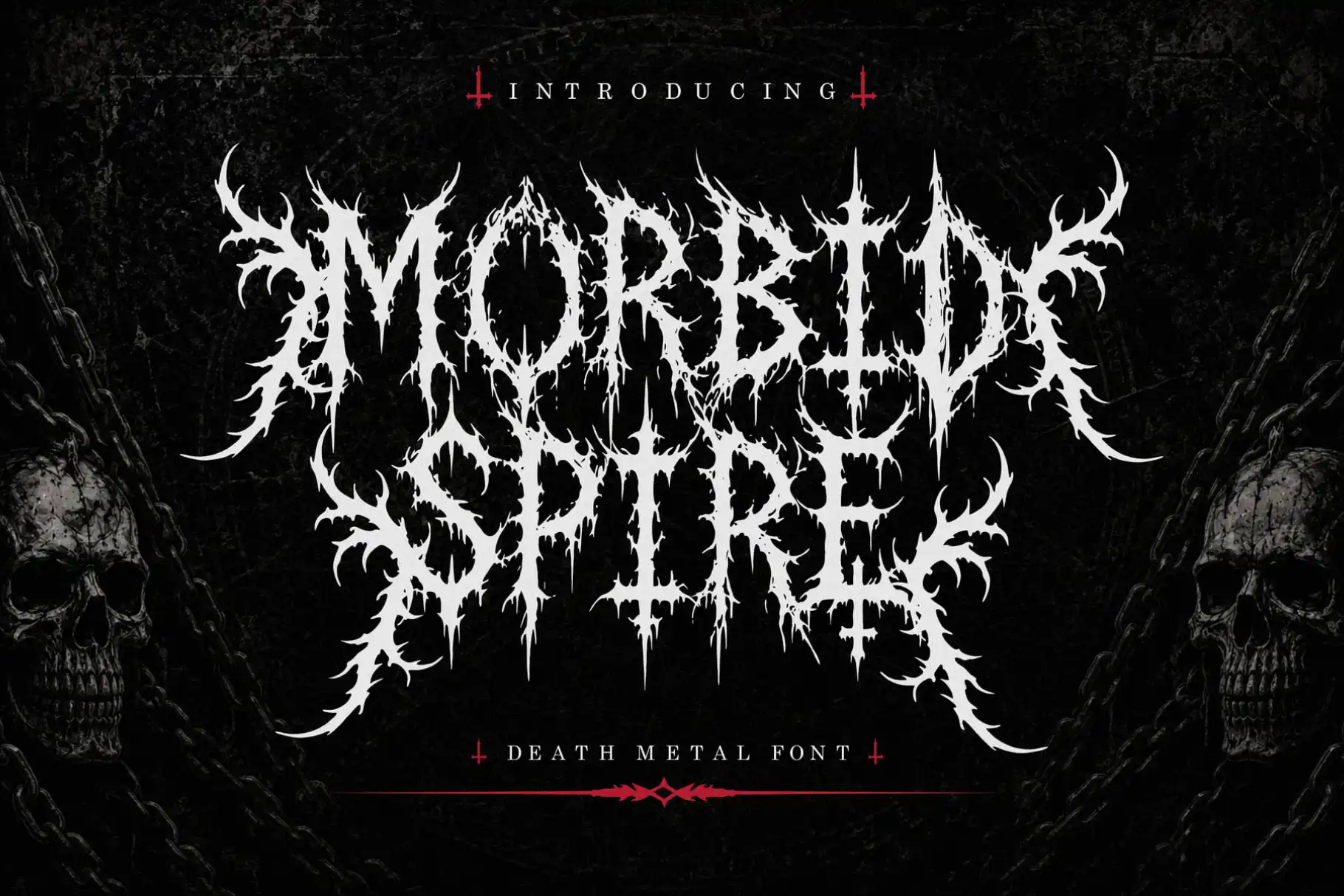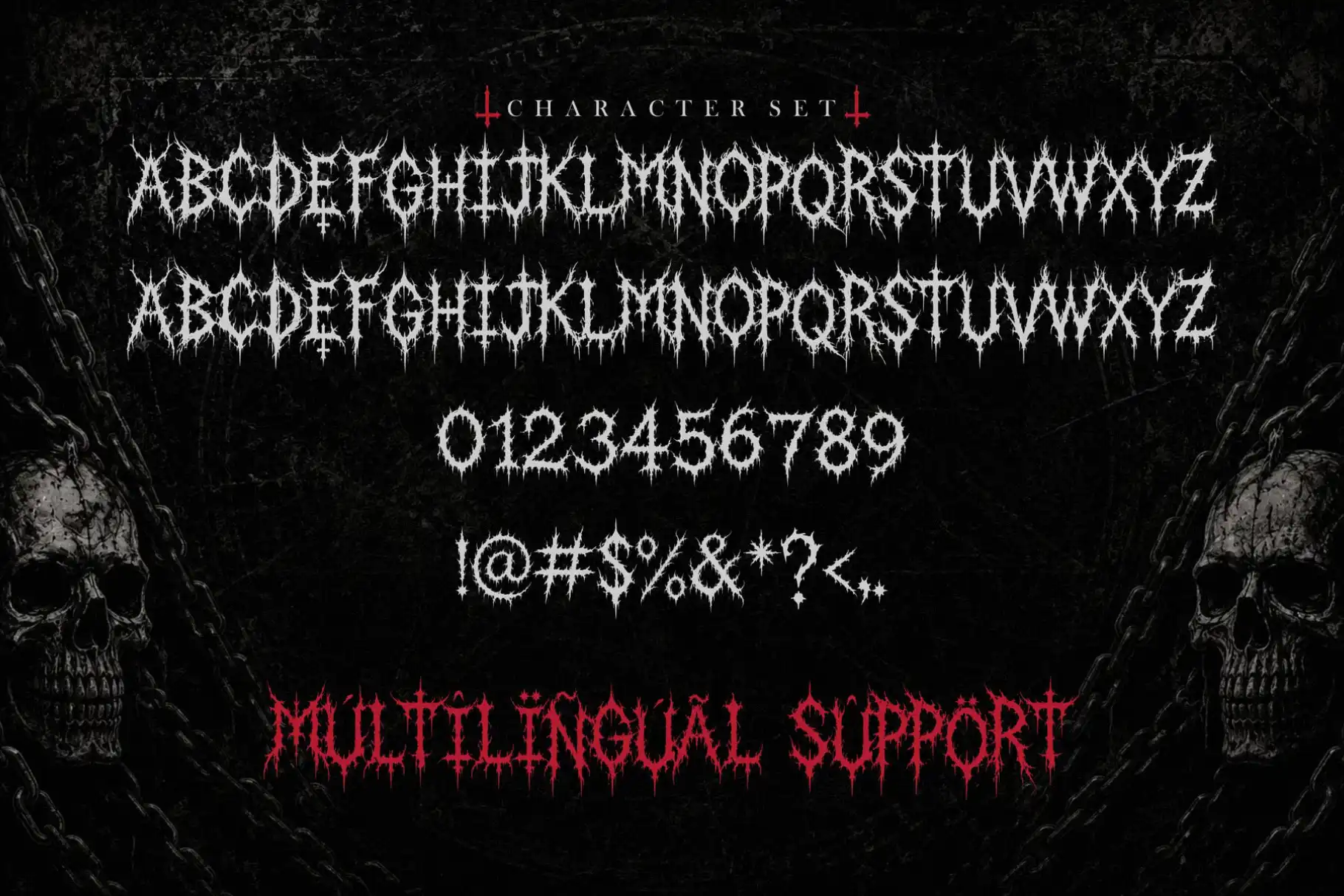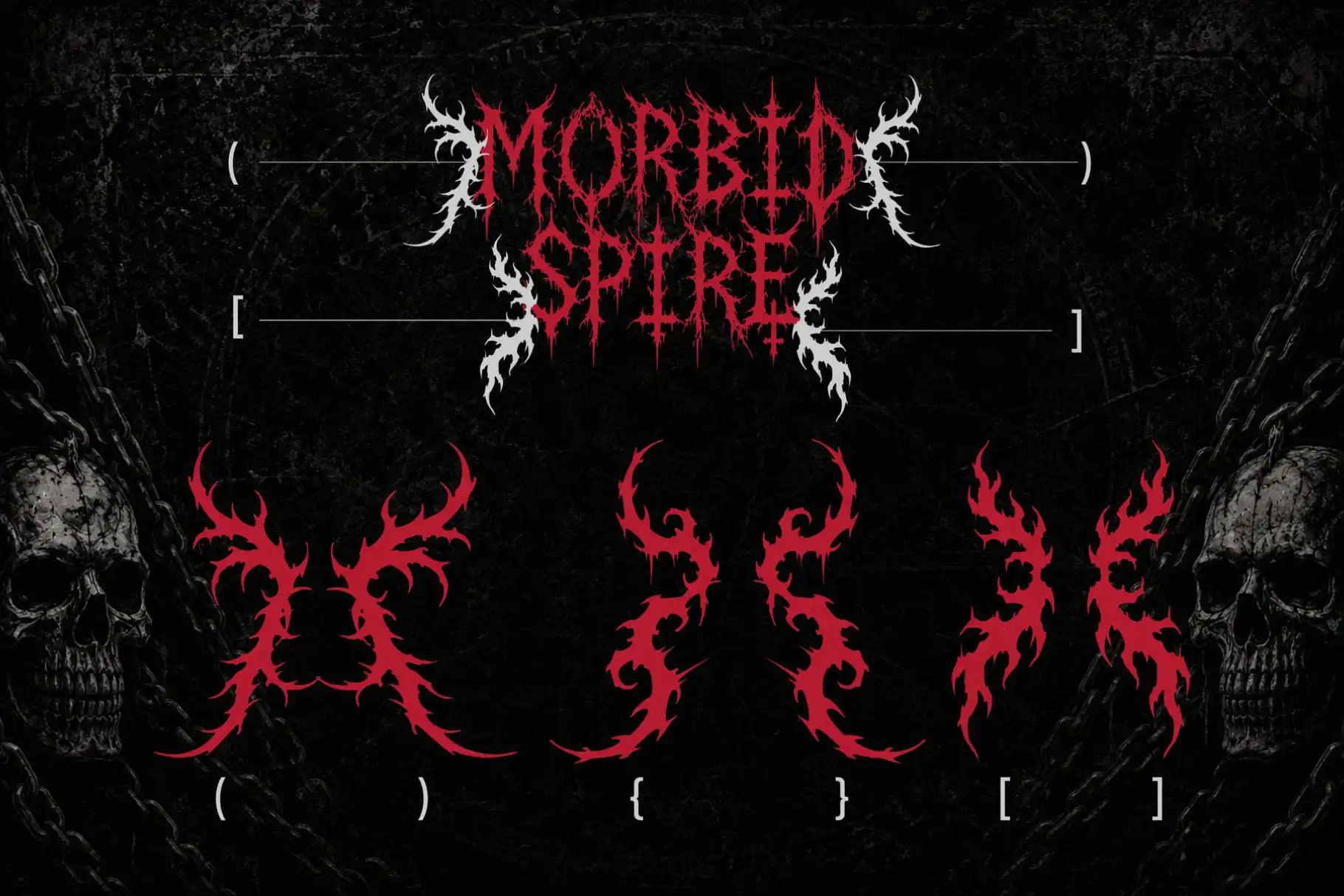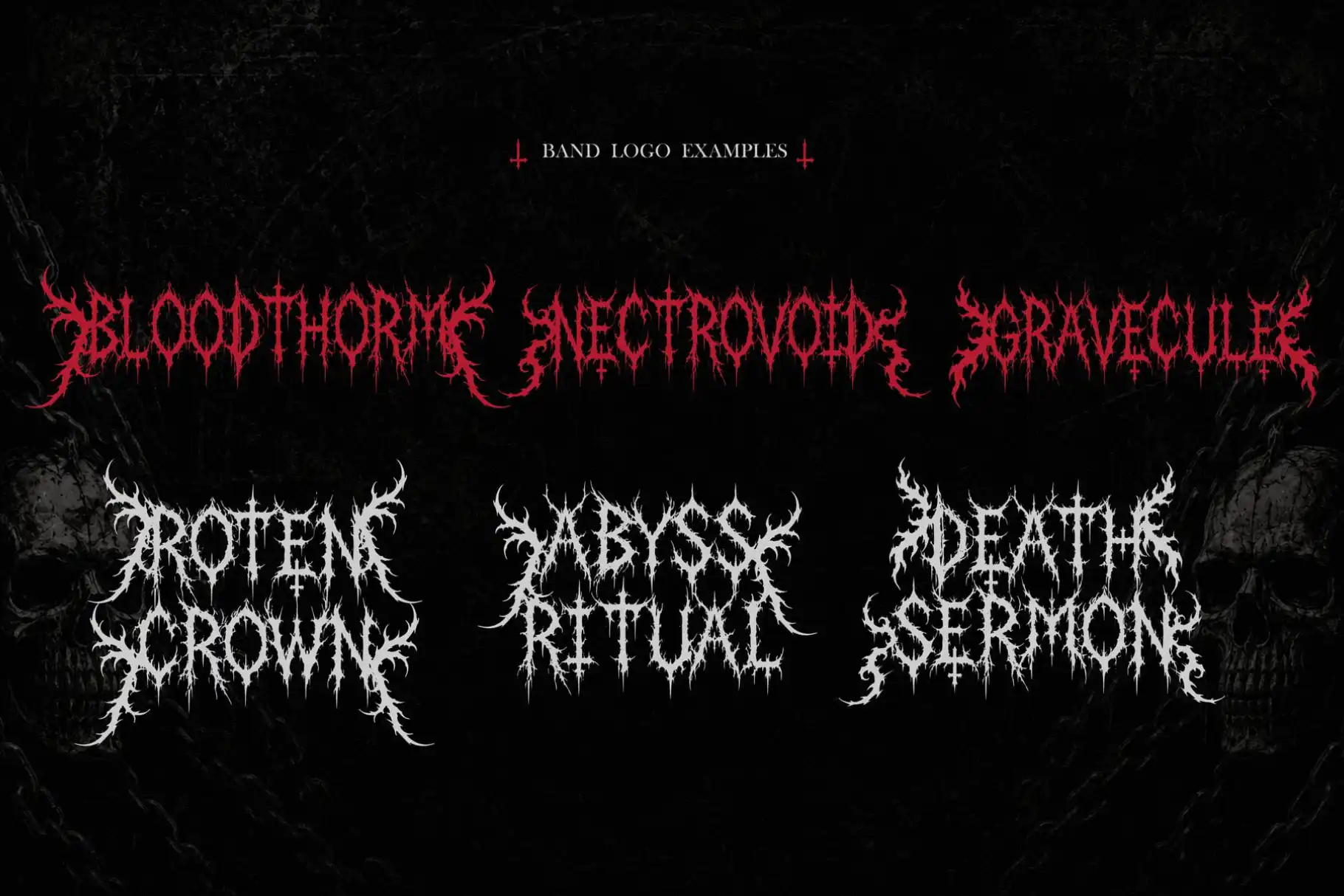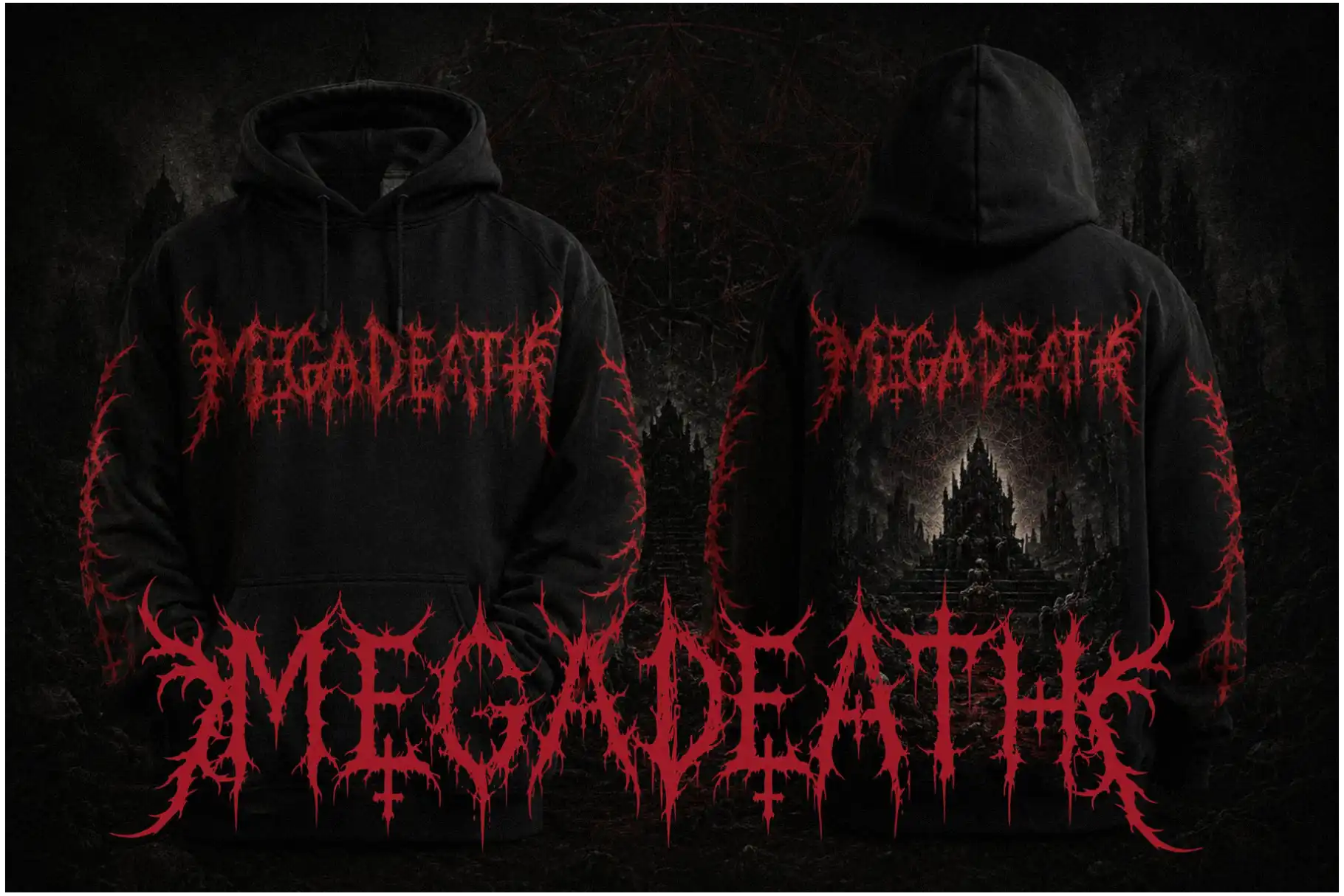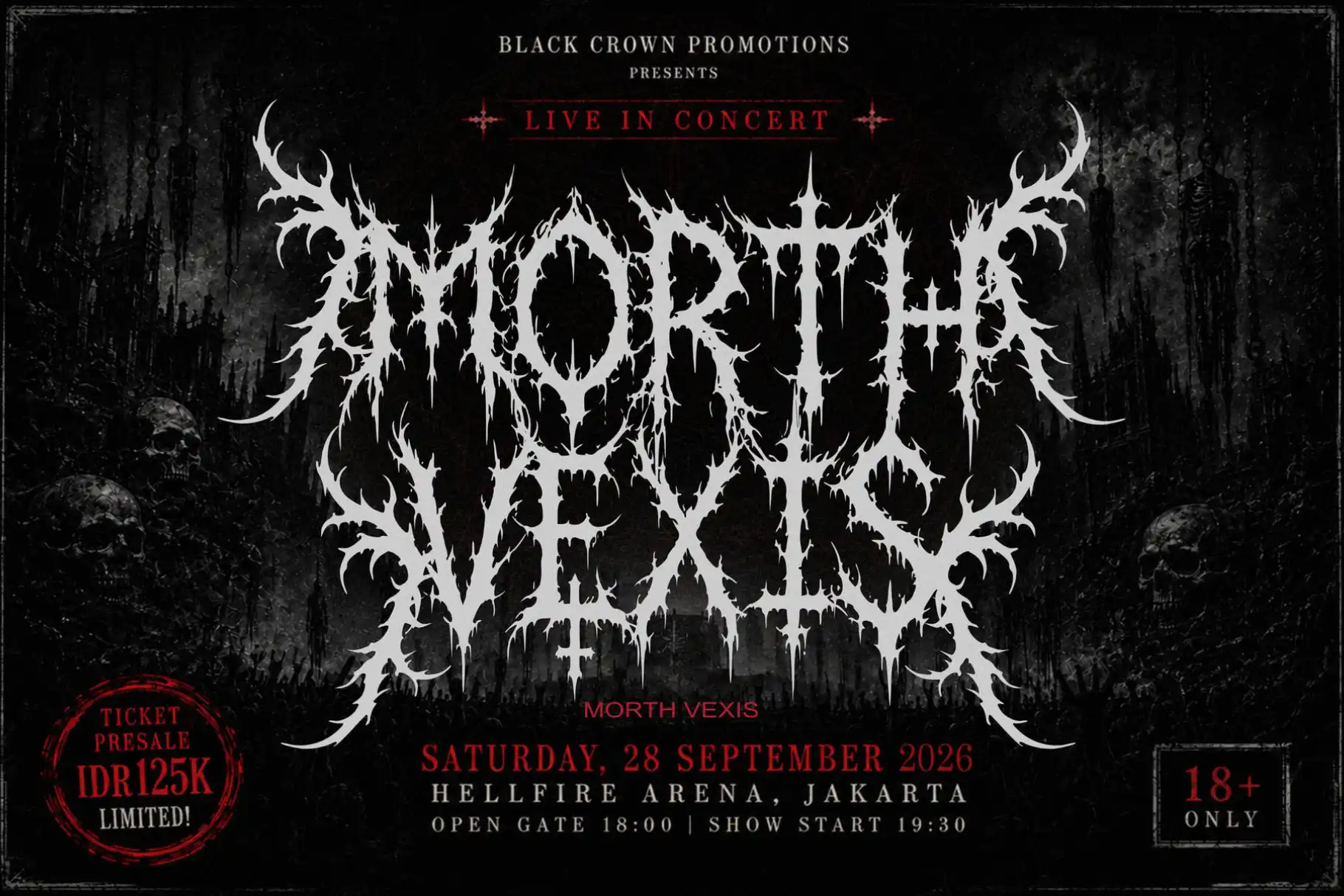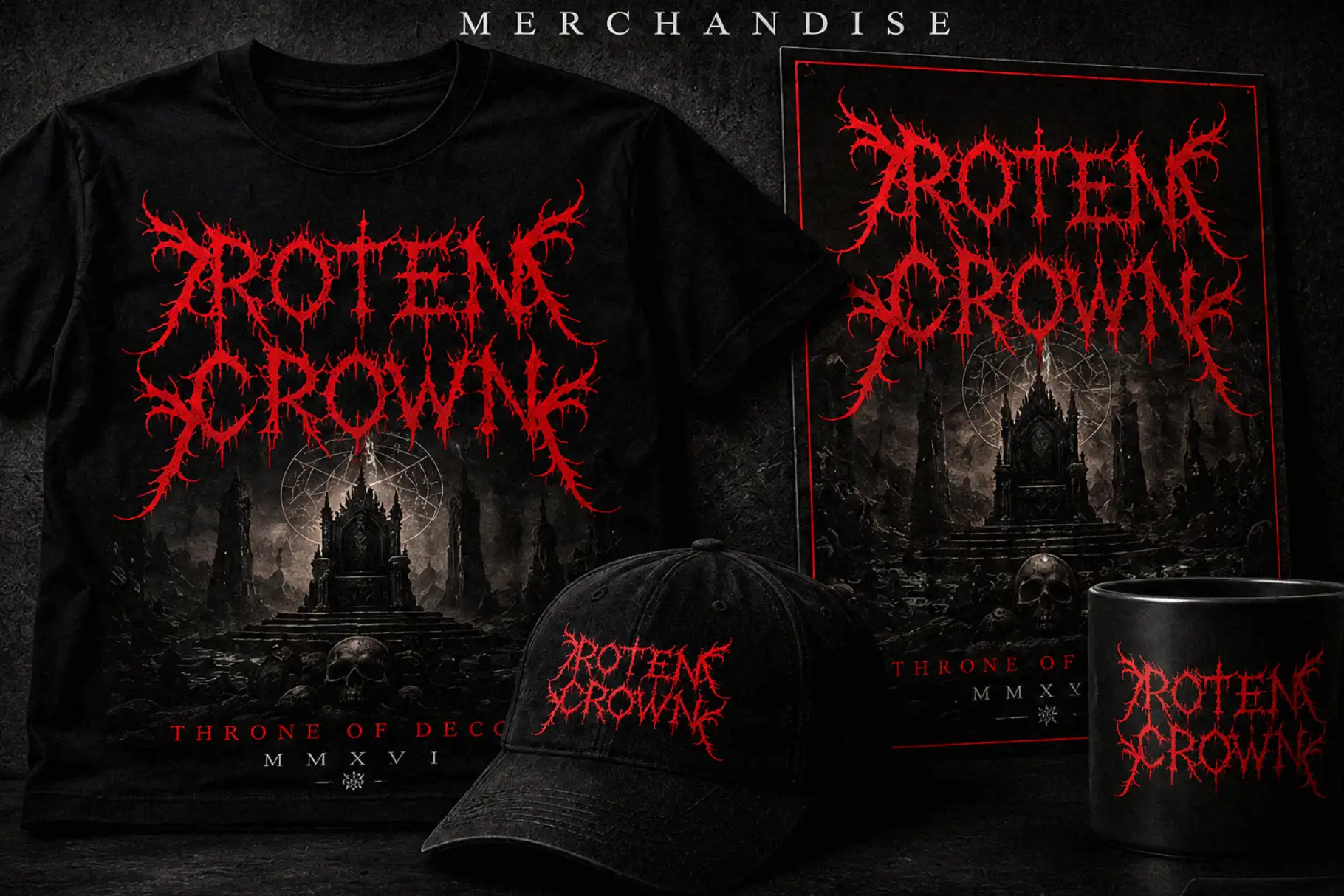
Morbid Spire Death Metal Font for Brutal Visual Statements
Morbid Spire death metal font is an all-caps display typeface created for artwork that needs a dark, aggressive, and unmistakably heavy visual presence. Built around a death metal aesthetic and completed with decorative details, it gives titles and names the intensity needed to stand confidently at the center of a composition.
This font is made for designers, musicians, apparel creators, creative studios, and independent brands working with extreme visual themes. Use it when an ordinary display font feels too restrained and your design needs typography with a stronger underground identity.
Morbid Spire works especially well in prominent placements where the letterforms can become part of the artwork. It can lead a band logo, dominate an album cover, introduce an event poster, or give merchandise graphics a distinctive metal-inspired direction.
Its all-caps structure creates a consistent and commanding typographic voice. Multilingual support also makes the font useful for designers producing creative work for different audiences and international projects.
Morbid Spire is defined by its death metal decoration and forceful all-caps presentation. The visual personality is dark, intense, confrontational, and highly decorative, making it suitable for compositions influenced by extreme music, horror imagery, underground culture, and alternative fashion.
Rather than acting as a quiet supporting typeface, Morbid Spire is designed to become a major visual element. Its decorative treatment helps transform words into artwork, making headlines feel more atmospheric and identities feel more distinctive.
The font can support monochrome compositions with black, white, gray, or distressed textures. It can also work inside more dramatic color palettes featuring deep red, metallic silver, acid green, dark purple, or other high-contrast combinations.
For the strongest result, give the typography enough space to remain visually dominant. Use Morbid Spire for the main name, title, or statement, then combine it with a simpler supporting font for dates, descriptions, track listings, product information, or smaller text.
Best Use Cases
Morbid Spire is a practical choice for creative projects that need an extreme, dark, or rebellious typographic direction. Its decorative all-caps style is especially suitable for:
• Death metal and extreme metal band logos
• Album covers and music artwork
• Concert flyers and festival posters
• Tour graphics and promotional banners
• T-shirt designs and apparel prints
• Metal merchandise and accessories
• Horror-themed posters and titles
• Tattoo-inspired typography
• Underground event branding
• Gaming team names and dramatic titles
• Social media graphics for bands and artists
• YouTube thumbnails and music channel artwork
• Stickers, patches, labels, and printed products
• Creative logos for alternative brands
• Editorial covers with a dark visual concept
Key Features
• All-caps letter style
• Multilingual support
• Death metal decoration
• Designed for bold display typography
• Suitable for dark, extreme, and music-inspired visual projects
Morbid Spire helps designers establish a strong creative direction without relying on ordinary display lettering. Its death metal decoration immediately introduces a clear mood, which can make the early stages of building a poster, logo, album cover, or merchandise graphic more focused.
The all-caps design is useful for compact names, powerful titles, and short statements that need to command attention. Designers can use the font as the visual anchor of a layout, then build supporting imagery, textures, illustrations, and secondary typography around it.
For musicians and independent labels, Morbid Spire offers a practical way to create a recognizable visual identity across releases, social content, promotional posters, and merchandise. For apparel designers, it can bring a darker personality to front prints, back graphics, patches, labels, and limited-edition collections.
Its multilingual support gives creative professionals additional flexibility when working across languages. This is valuable for international collaborations, touring materials, multilingual promotional graphics, and client work intended for a broader audience.